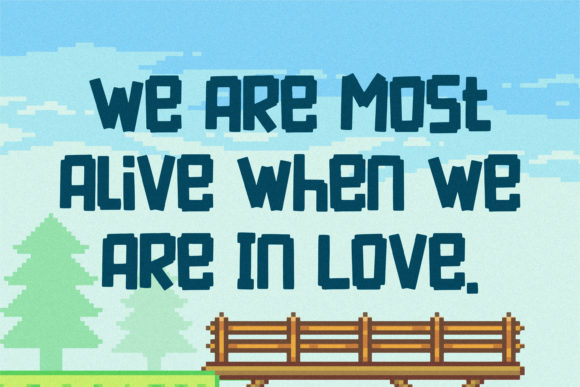
Pixel Craft Font
Pixel Craft Font is a cool and adaptable display font. This font is suitable for designs such as t-shirts, sportswear, posters, logos, advertisements, clothing, and more.
Pixel Craft Font is a cool and adaptable display font. This font is suitable for designs such as t-shirts, sportswear, posters, logos, advertisements, clothing, and more. Whatever the topic, this font will be a great asset to your font collection, as it has the potential to enhance any creation.